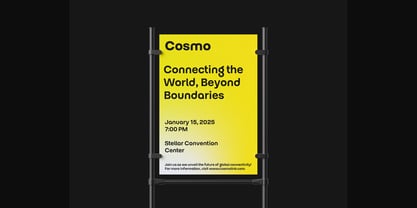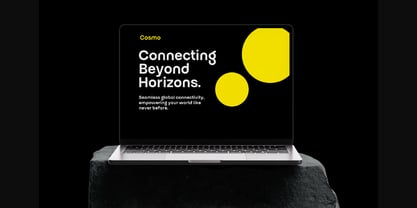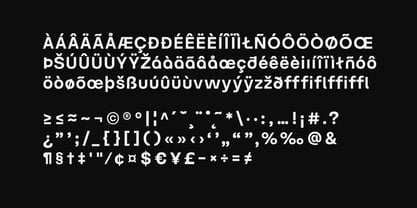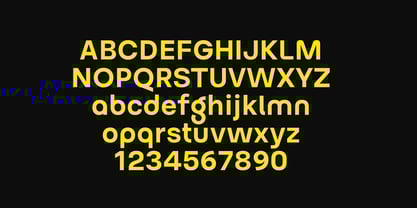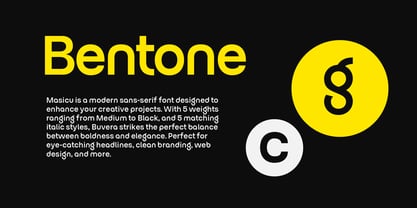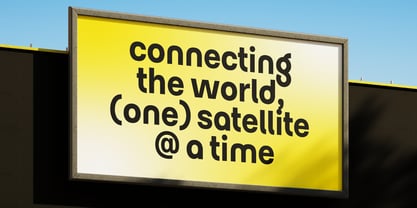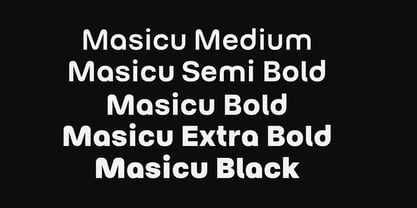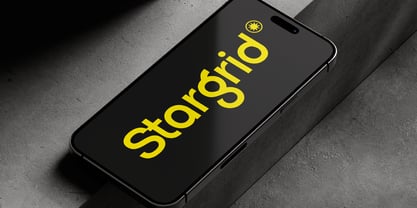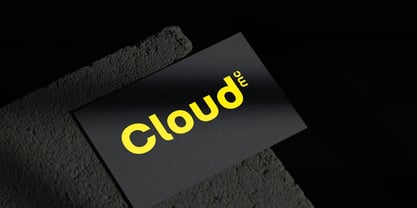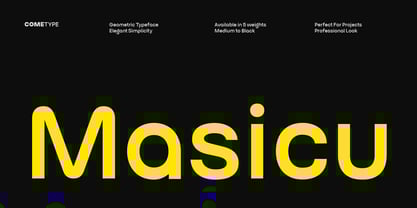
Masicu
by Come Type
The Masicu Font Family was designed by abdul artega and published by Come Type. Masicu contains 5 styles and family package options. More about this family
Masicu is a modern geometric typeface crafted with precision and elegant simplicity. Available in 5 weights—Medium, SemiBold, Bold, ExtraBold, and Black—it provides versatility for a wide range of design needs. Its clean and well-proportioned geometric shapes make it ideal for branding, headlines, posters, and other contemporary designs. Perfect for projects that demand a modern, bold, and professional look.
Designers: abdul artega
Foundry: Come Type